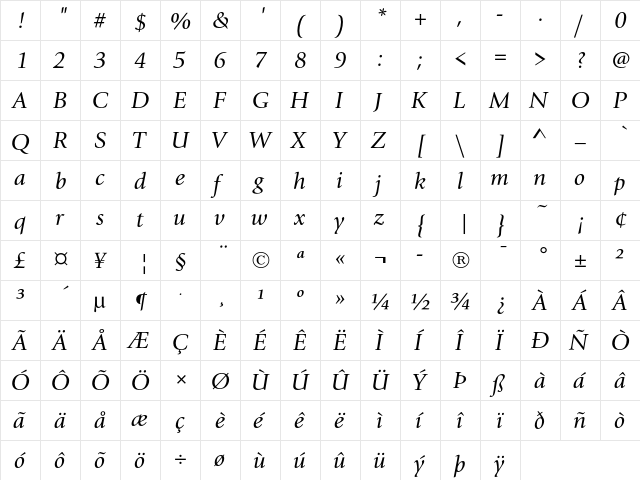
Giovanni Itc T OT Book Italic Font Preview
Giovanni Itc T OT Book Italic
Design Context for Giovanni Itc T OT Typeface
Giovanni Itc T OT takes a measured approach to typography — its balanced proportions and neutral character make it a reliable workhorse for both digital and print work. The dynamic lean of this cut emphasises speed and emphasis in any layout.
Pro Tip: Use Giovanni Itc T OT for emphasis, pull quotes, and subheadings where its slanted energy can add rhythm to the layout.